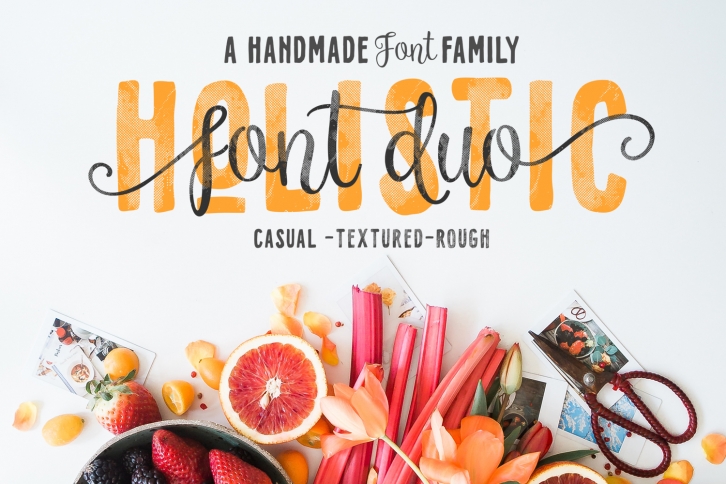
Holistic Duo is a beautiful font that was designed by Letrasupply. It's a great choice for designers and creatives who need such a font. It was released on November 4, 2017 and the file size is 16.90 MB. Holistic Duo may give a more youthful, expressive and casual look to your project. It is a very beautiful, refined, elegant, and high-quality font.